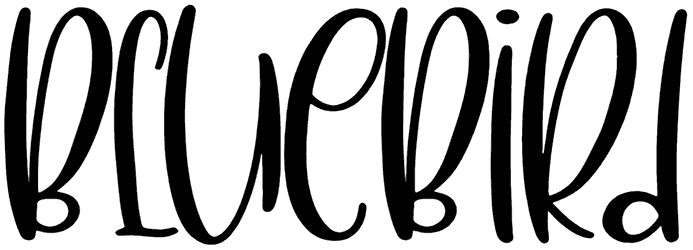
BlueBird Font
BlueBird is the perfect way to make a big impact and grab the attention of your audience. Because it has fancy letters and twists inspired by script fonts that can give an artistic form to your project.
This feminine font has been able to break the usual formats and end up with only one thing: an outstanding and eye-catching design! This font can be used to show creativity in headlines, logos, and advertisements.